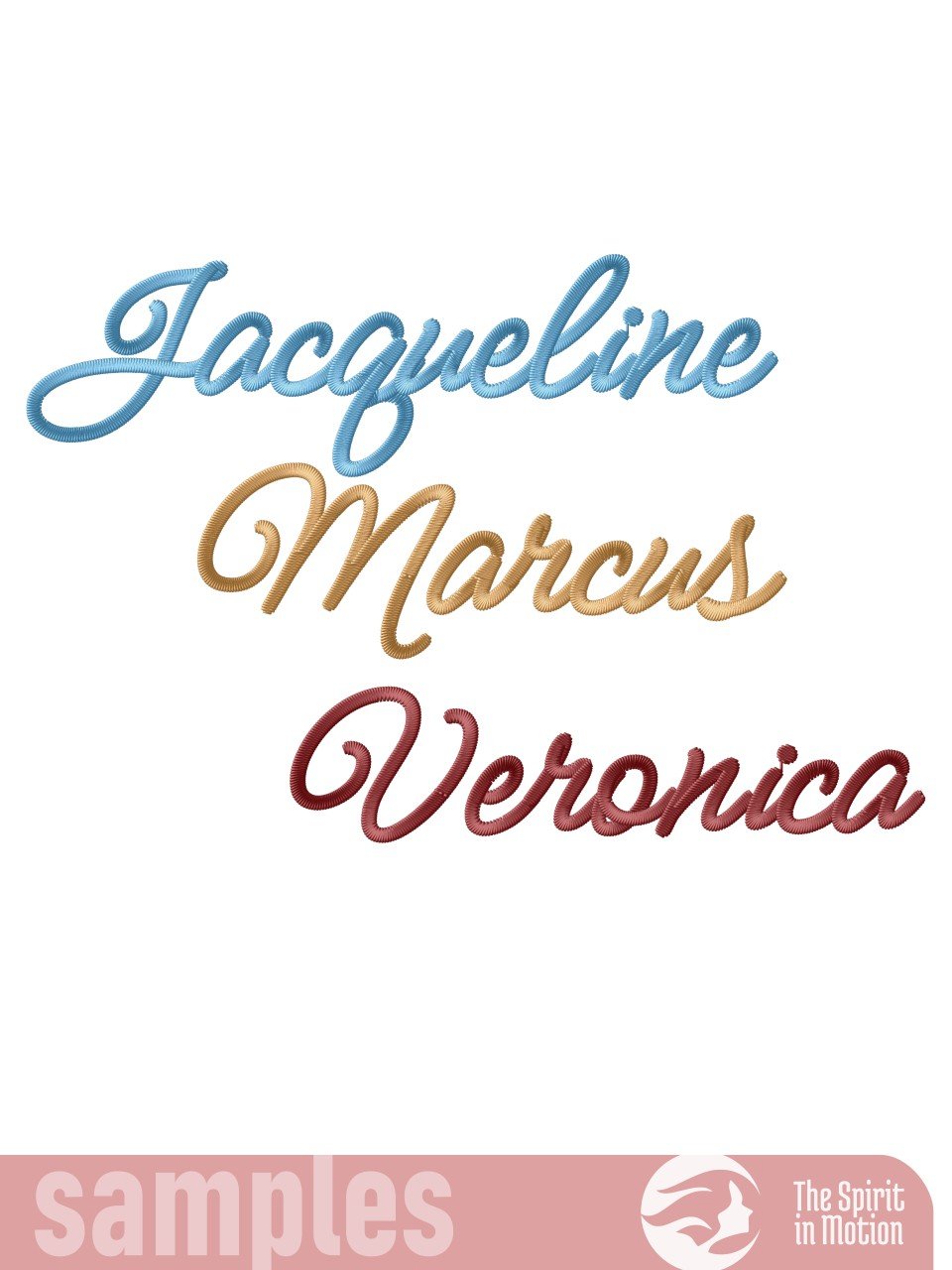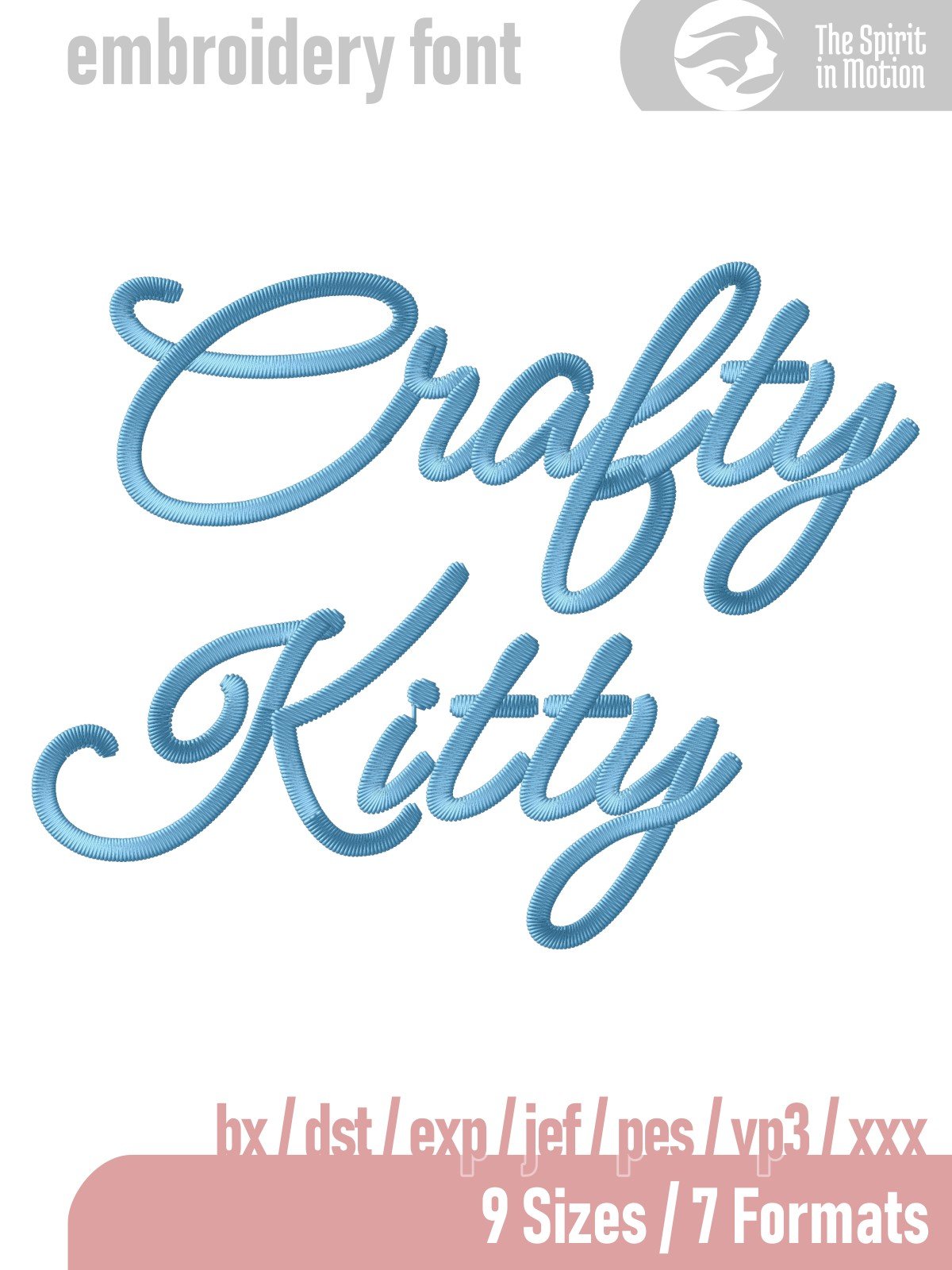
Crafty Kitty Regular Monoline Machine Embroidery Font | PES, BX, DST
Crafty Kitty Regular is a playful monoline embroidery font with smooth, flowing stitches that give your words a whimsical and handmade look. It comes with uppercase and lowercase letters, numerals, and punctuation, making it versatile for names, quotes, and decorative text. Perfect for clothing, accessories, and home décor projects, this font adds a charming and stylish touch whether you’re working on everyday designs or special gifts. Its clean yet lively stitching ensures your embroidery stands out beautifully.